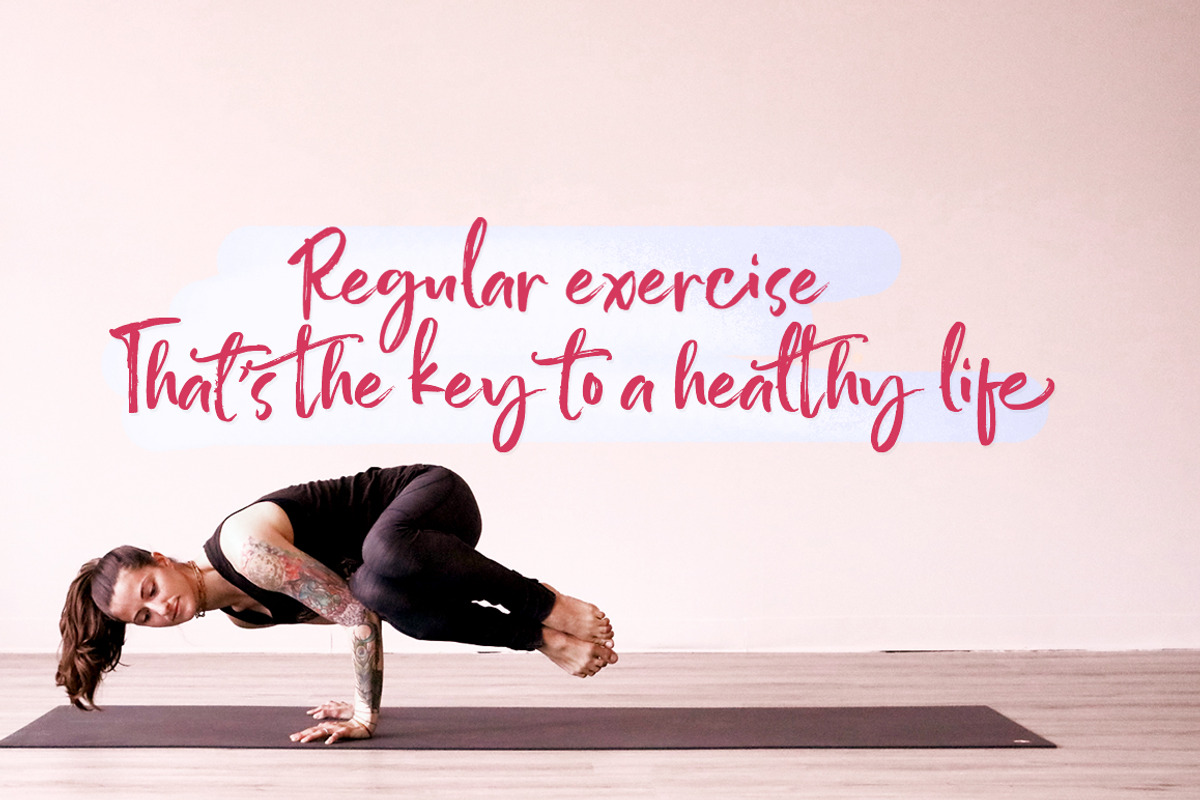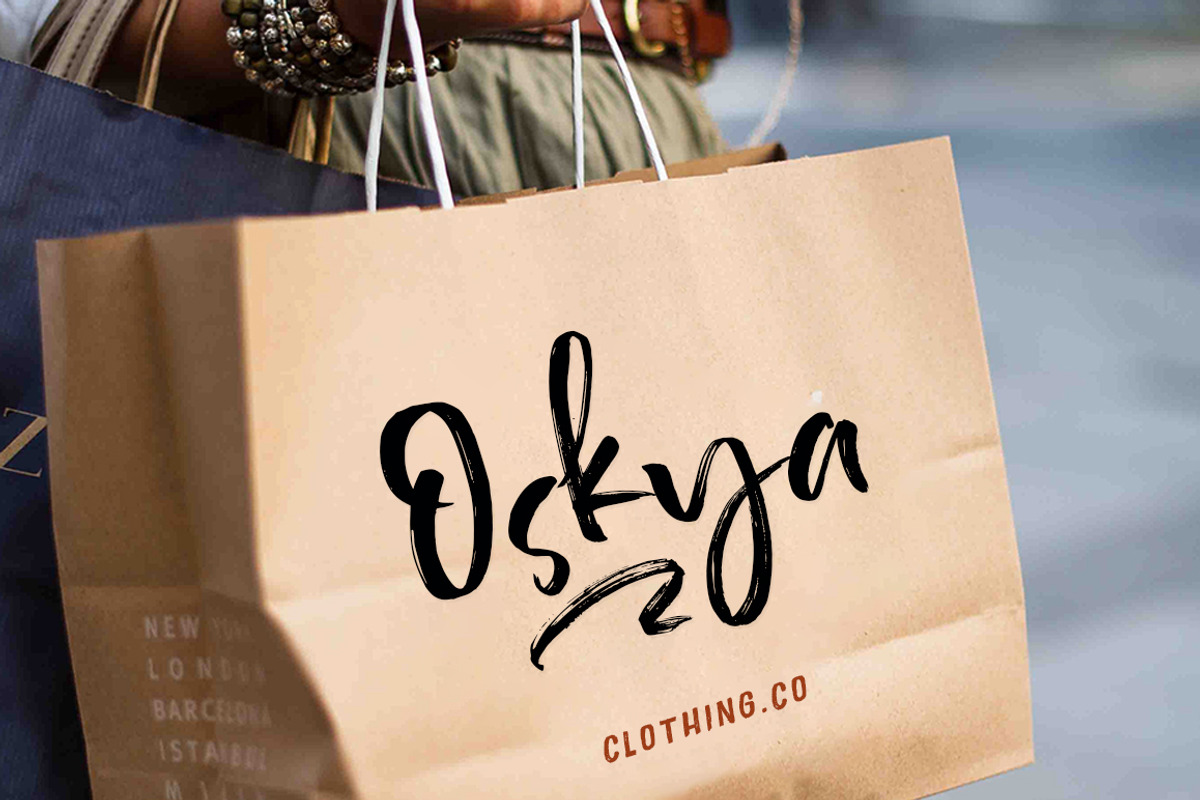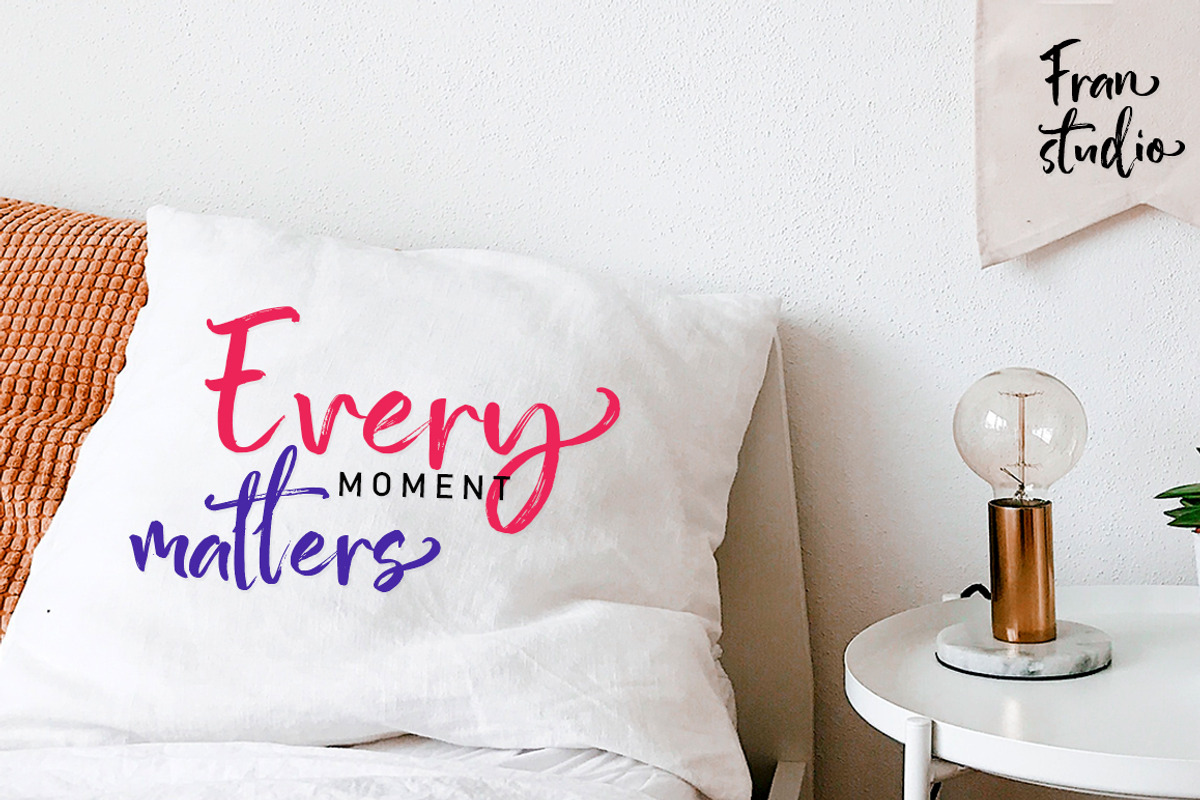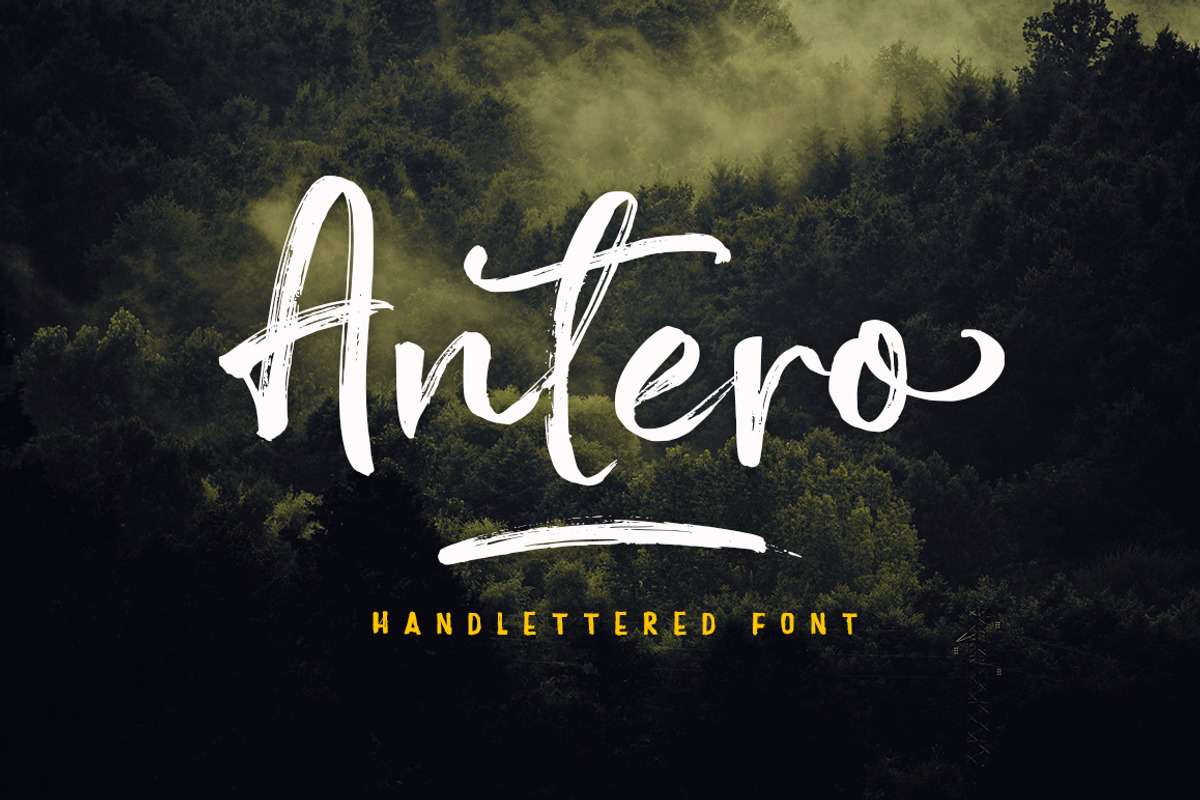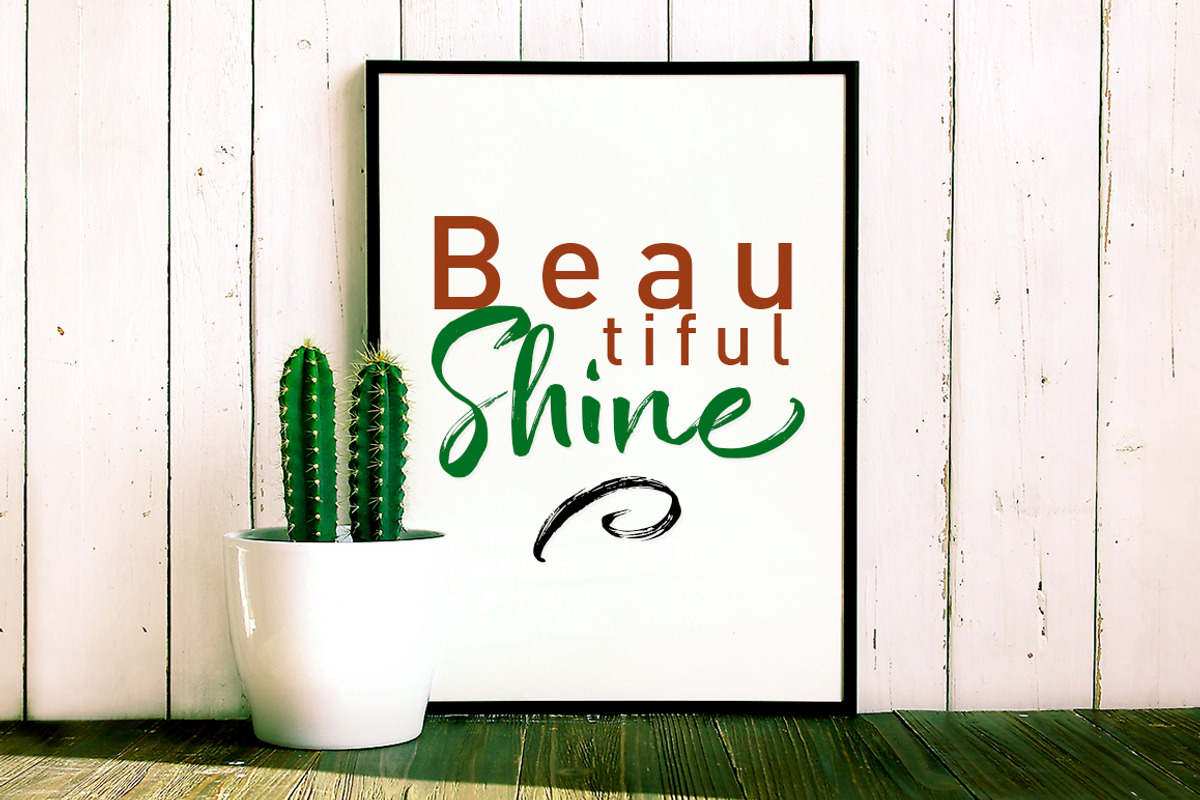
Antero Brush font
Antero is a very interesting new brush font. This font family is perfect for branding projects, logos, product packaging, posters, invitations, greeting cards, news, blogs, and more.
The Antero offers OpenType features, several ligatures and swashes, initial and terminal letters, and international support for most Western languages.